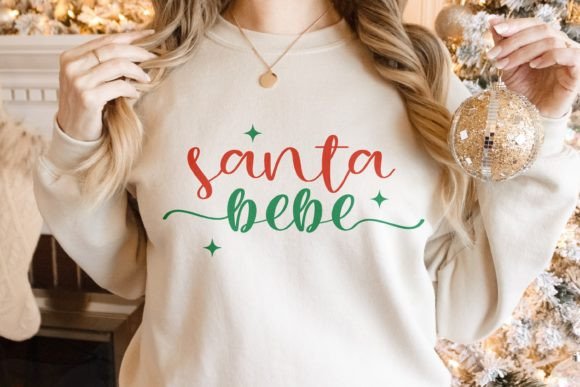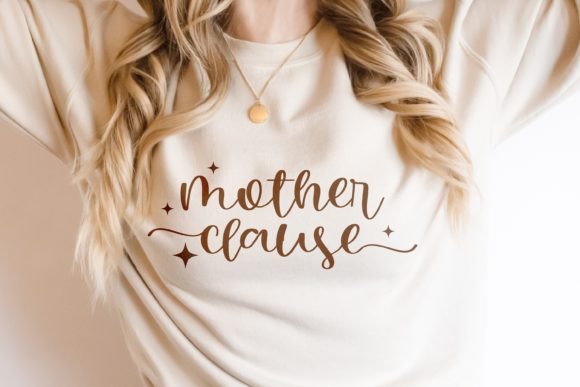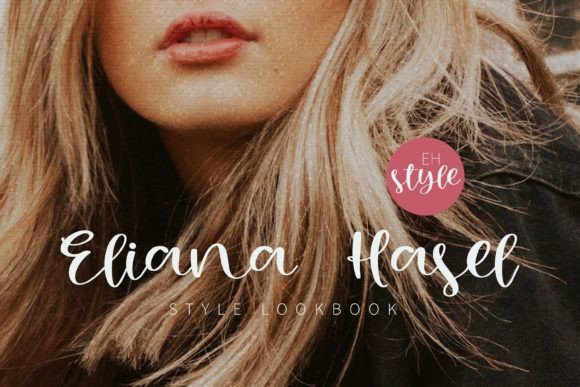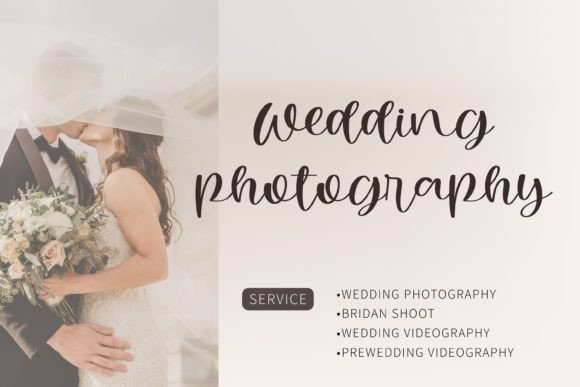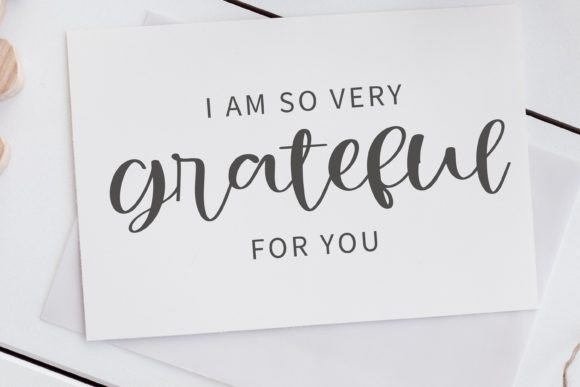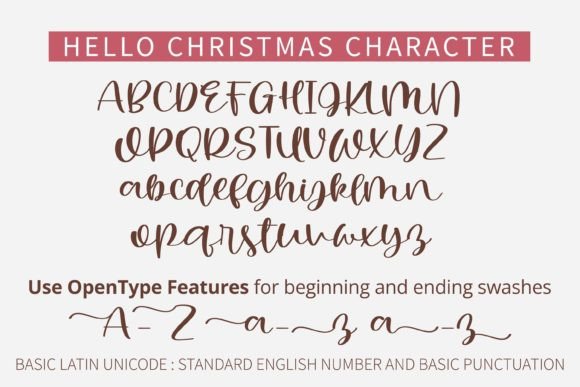
That’s where the Hello Christmas Font comes in – a sweet and cute handwritten font that’s perfect for capturing the essence of the holiday season. With its incredibly versatile style, you can use it to create gorgeous wedding invitations, beautiful stationery art, and eye-catching social media posts. The Hello Christmas Font is PUA encoded, making it easy to access all of its amazing glyphs and ligatures.
Hello Christmas Font Key Features
- Font Family: A unique, festive font designed specifically for Christmas and holiday-themed projects.
- Unique Characteristics: Features intricate details, ornaments, and swashes to add a touch of elegance and festivity to designs.
Designer Review: Hello Christmas Font
Hello Christmas Font is a charming holiday font that can add a touch of festive cheer to your designs. ✨ The font features a beautiful, cursive script with intricate details and ornaments that evoke a sense of nostalgia and warmth. The font is available in a variety of weights and styles, making it easy to find the perfect fit for your project.
- Beautiful, cursive script with intricate details and ornaments
- Available in a variety of weights and styles
- Perfect for holiday-themed designs, such as Christmas cards, gift tags, and wrapping paper
However, there are a few limitations to consider. ⚠️ The font may not be suitable for body text, as it can be quite ornate and difficult to read at smaller font sizes. Additionally, the font may not be compatible with all operating systems or devices, which could lead to display issues.
Overall, I think Hello Christmas Font is a great addition to any designer’s toolkit, especially during the holiday season. While it may have some limitations, its unique charm and beauty make it a great choice for special projects and designs.
Here are some tips for getting the most out of the “Hello Christmas Font”:
- Use the font in conjunction with festive graphics and colors to create a cohesive holiday design.
- Experiment with different font sizes and styles to add visual interest to your design.
- Combine the font with other holiday-themed fonts for a unique and festive look.
The “Hello Christmas Font” is perfect for:
- Holiday greeting cards and invitations.
- Christmas party decorations and signage.
- Holiday-themed social media graphics and ads. Alternatives to Hello Christmas Font for Designers
- Choose a bright and festive background color.
- Select a warm and cozy image, such as a winter scene or a Christmas tree.
- Type out the greeting in Hello Christmas Font, using words like “Merry Christmas” or “Happy Holidays”.
- Add a personal message or a name to make it extra special.
- Festive patterns, such as polka dots or stripes.
- Gold or silver glitter for a luxurious touch.
- Soft and muted colors to create a warm and inviting atmosphere.
- Create a cover page with a festive title, such as “Sweet Christmas Treats”.
Merriweather is a classic, elegant
Get Creative with Hello Christmas Font
Project 1: Christmas Greeting Card
Create a personalized Christmas greeting card using the Hello Christmas Font.
To use the Hello Christmas Font in this project:
Combine the Hello Christmas Font with:
Project 2: Christmas Cookie Recipe Book
Design a Christmas cookie recipe book using the Hello Christmas Font to add a touch of holiday cheer.
To use the Hello Christmas Font in this project:
Combine the Hello Christmas Font with: